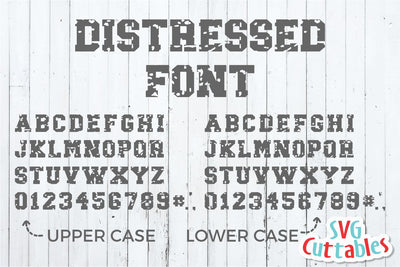
Distressed Sport Font
Distressed Sport Font called JP Sport Distressed
Upper and lower case are the same case size but different distressed pattern so if you have double letters like LL you can use an uper case L and a lower case l to have different distress pattern.
I wanted to make a font that was distressed but as easy as possible to weed when cut with your vinyl cutter. It will take a little extra time to weed but it will give you a distressed / grunge look that is hard to create when working with vinyl.